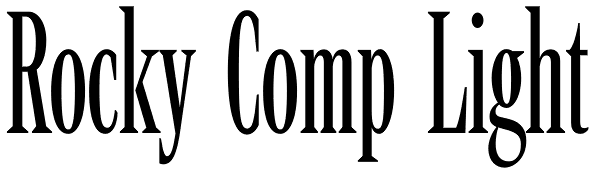
Rocky
For years Matthew Carter wondered why no Latins with Bodoni proportions had been developed, or why no Bodonis had Latin serifs. He solved his problem by drawing Rocky Regular and Bold with italics to fill the gap, then expanded the family with the...